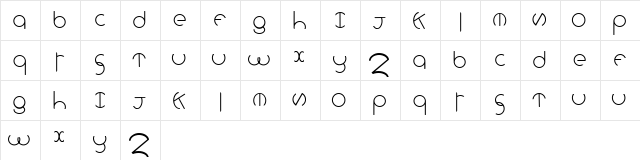
rollingdeep Regular Font Preview
rollingdeep Regular
rollingdeep Regular Font Details
| Foundry | xerographer.com |
| Designer | max infeld |
Design Context for rollingdeep Typeface
rollingdeep is a composed and adaptable typeface that performs quietly and consistently across a wide range of design contexts.